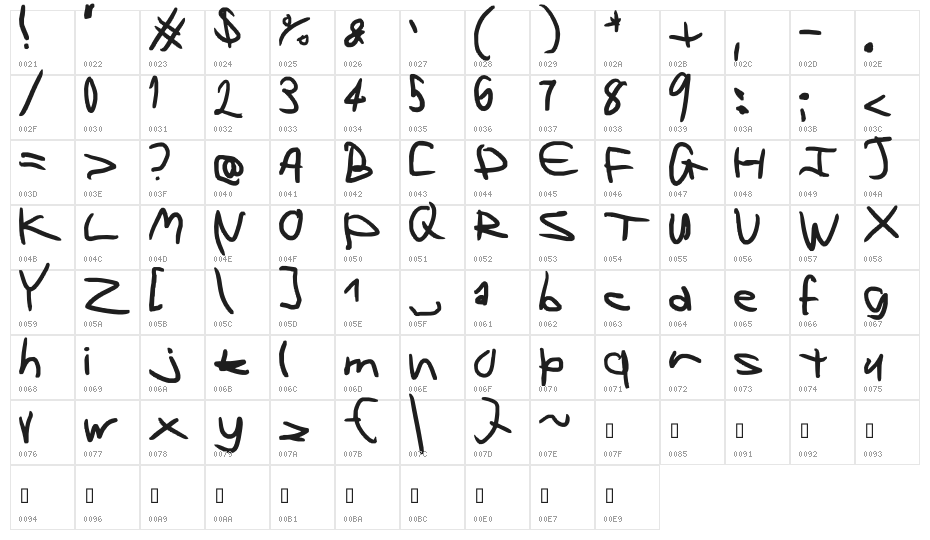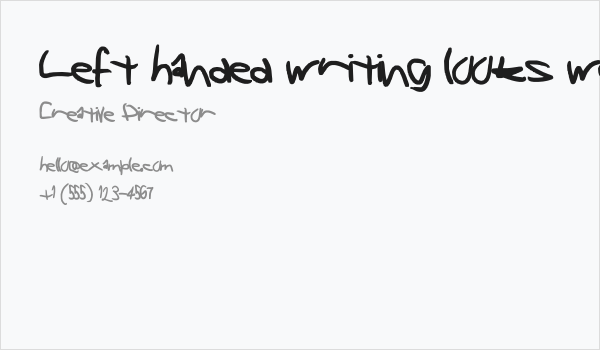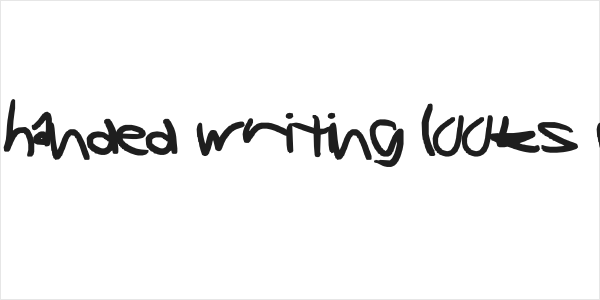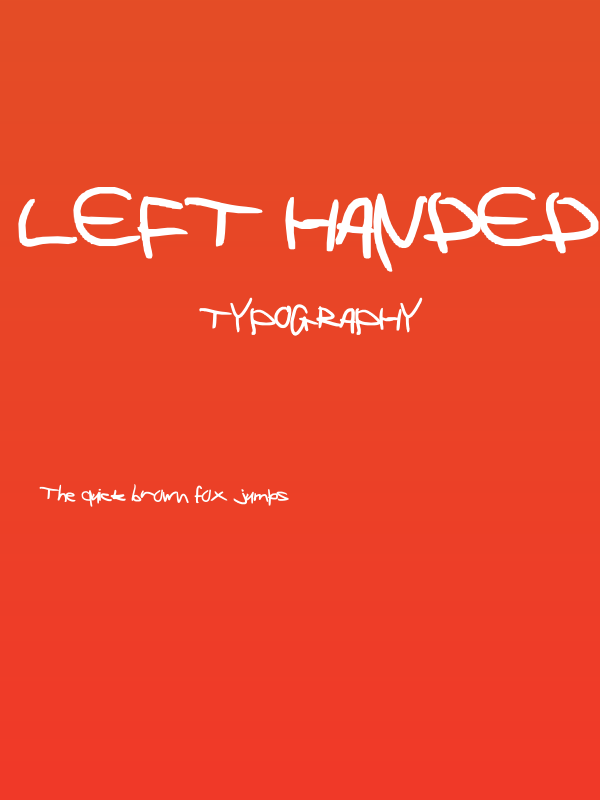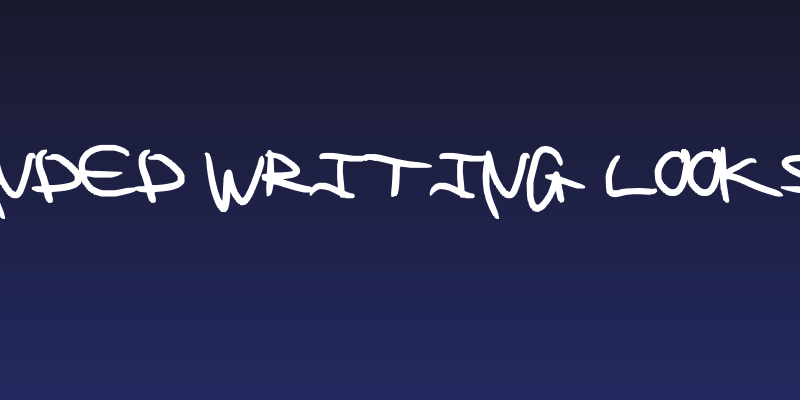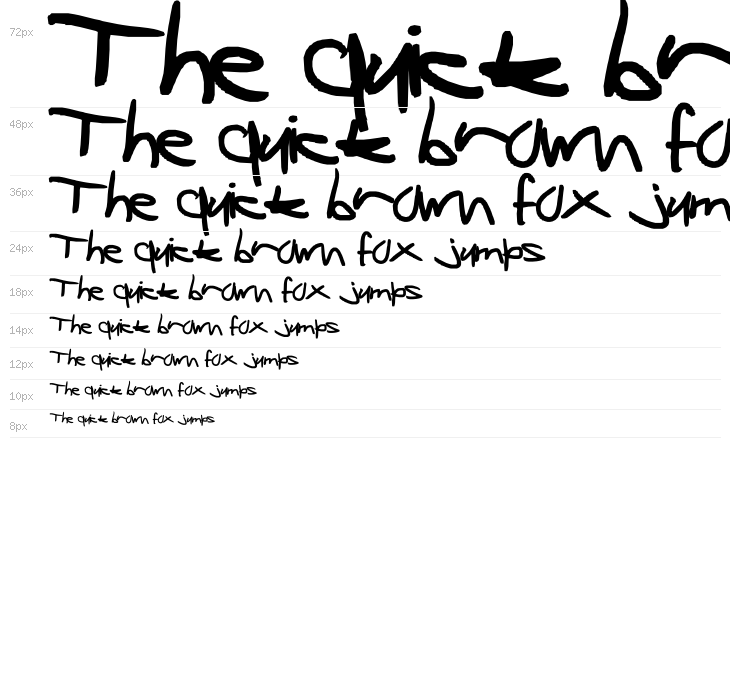
Left handed writing looks weird Font
Left handed writing looks weird Description
This font exhibits a unique, handwritten style that mimics the natural flow of left-handed writing. The characters are bold and expressive, with a slightly chaotic and spontaneous appearance. The strokes are uneven, giving it a raw and authentic feel. This font captures the essence of personal handwriting, with each letter having its own distinct personality. The uppercase and lowercase letters maintain a consistent style, while the numbers and special characters are equally dynamic and lively. The overall look is informal and artistic, making it ideal for creative projects that require a personal touch.
| Overall Style | Artistic, Informal |
| Use Case | Creative projects, Personal notes, Informal invitations |
| Proposed Projects | Ideal for personal notes, creative projects, artistic designs, and informal invitations. |